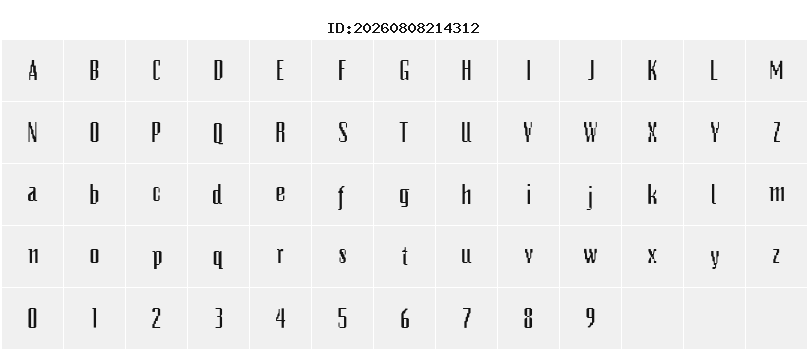
PixelsDream-DemiBold Preview
• Font Name: PixelsDream-DemiBold
• Full Font Name: PixelsDream-DemiBold
About PixelsDream-DemiBold.ttf
PixelsDream-DemiBold.ttf is a modern, elegant sans-serif font designed for ultimate readability and visual harmony. Perfect for branding, headlines, web design, and print materials.